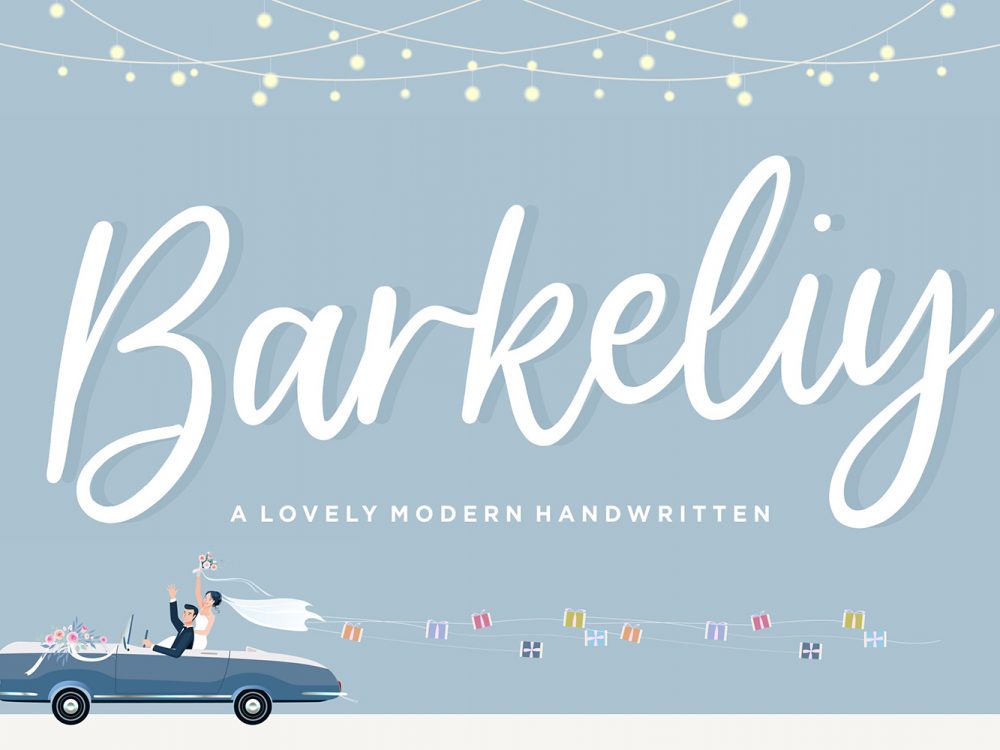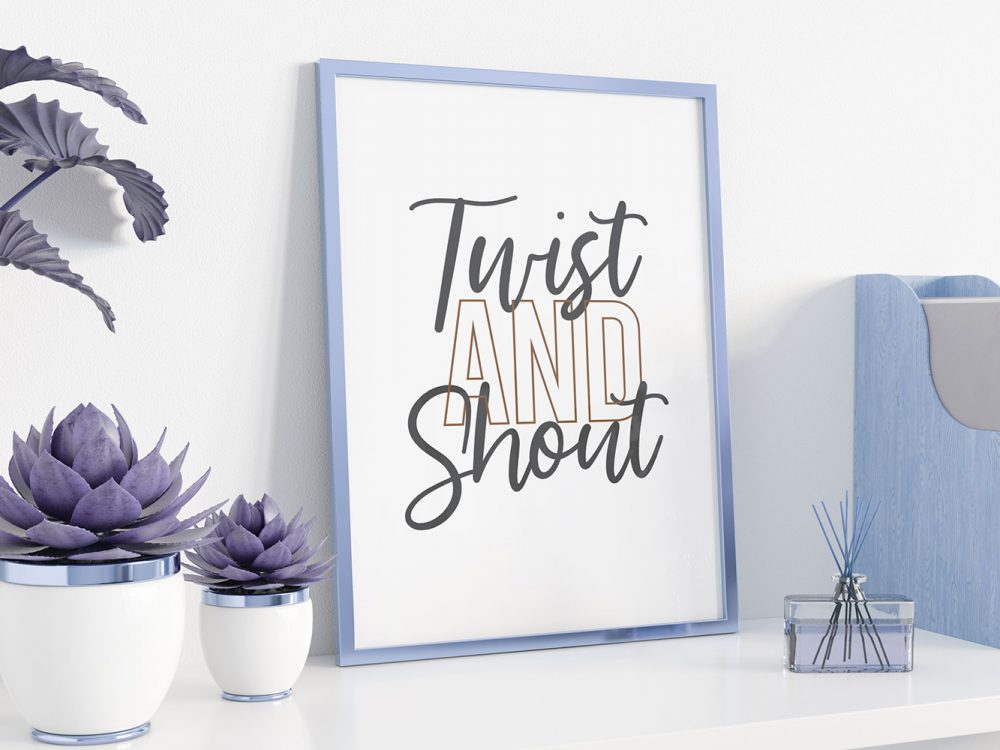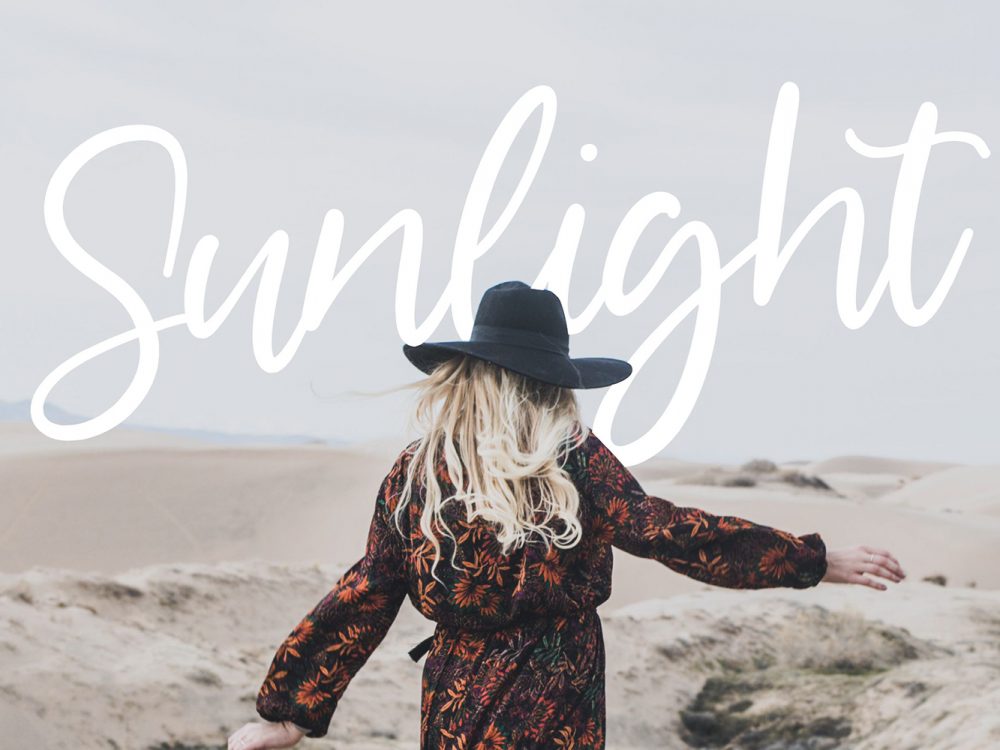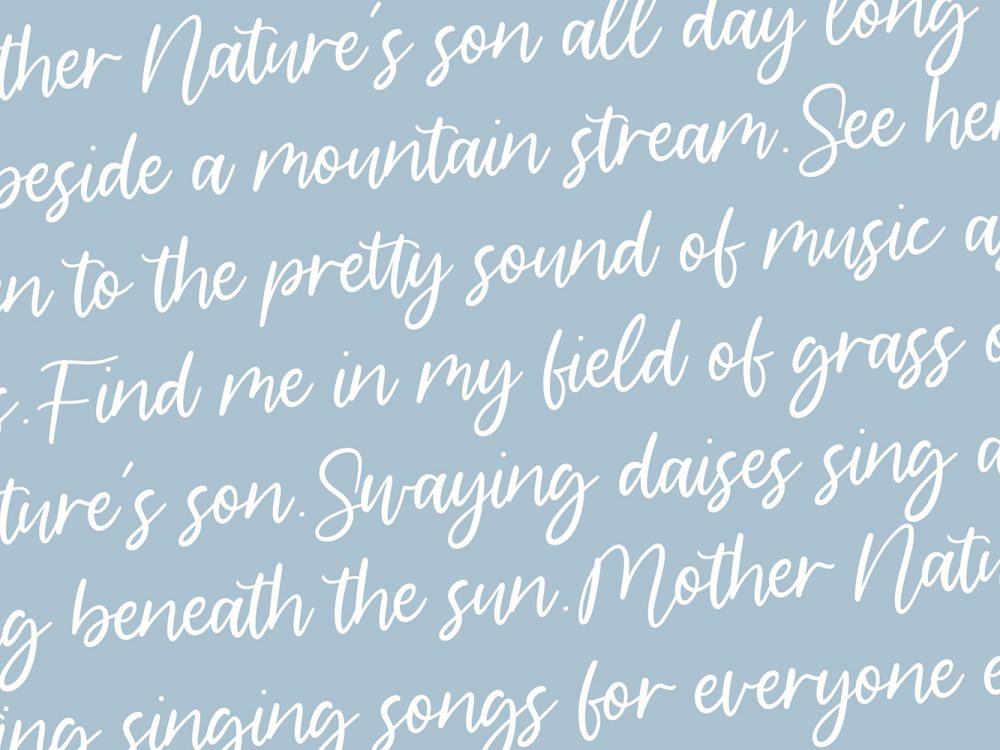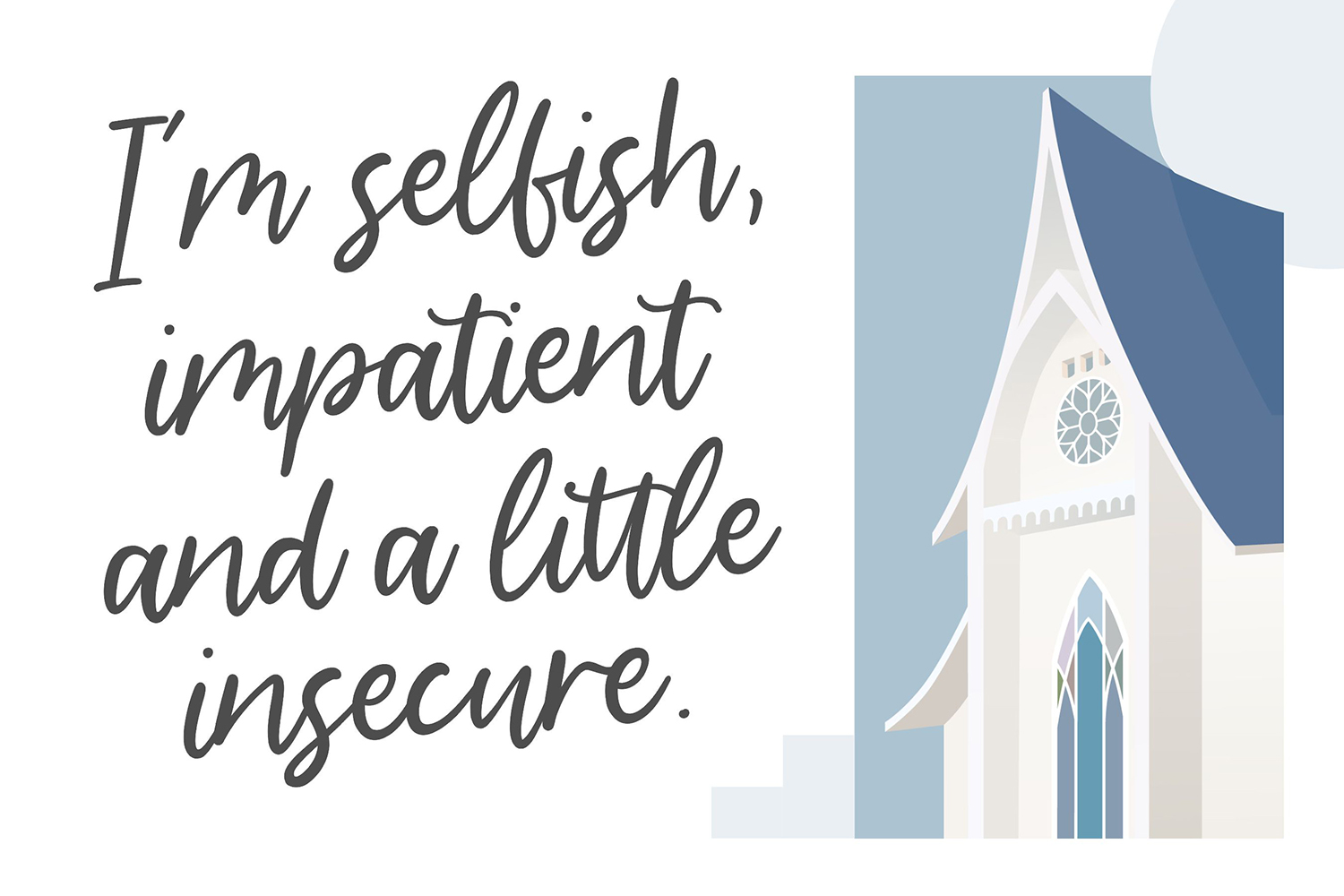
Barkeliy Free Font
Barkeliy Free Font is a modern typeface with a unique calligraphic style. This font is very suitable for a variety of design projects that require a scriptable, interesting handwritten font. You can use this font to create memorable romantic posters, wedding invitations, greeting cards, branding, flyers, t-shirt and pillow prints, and more. Improve the quality and increase the popularity of your design projects by using this font. If you like it don’t forget to check out the full version.
Author: Balpirick Studio